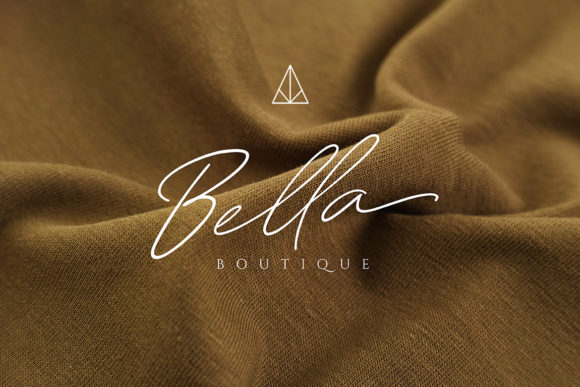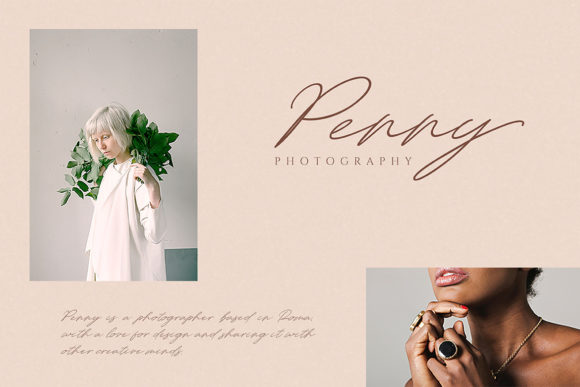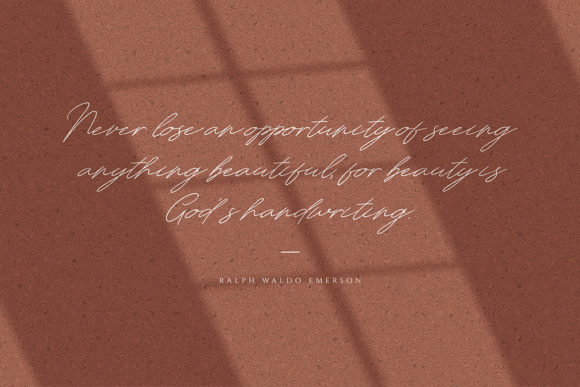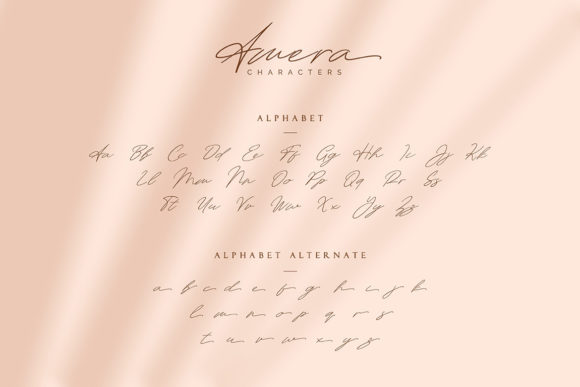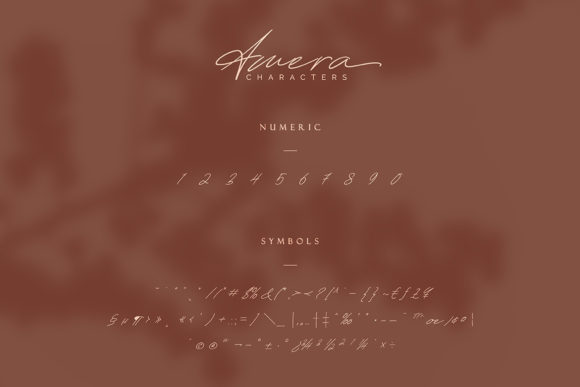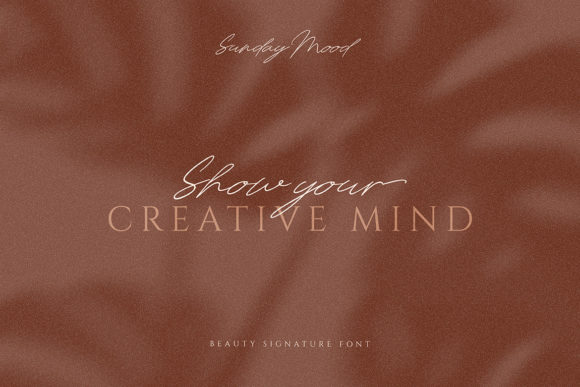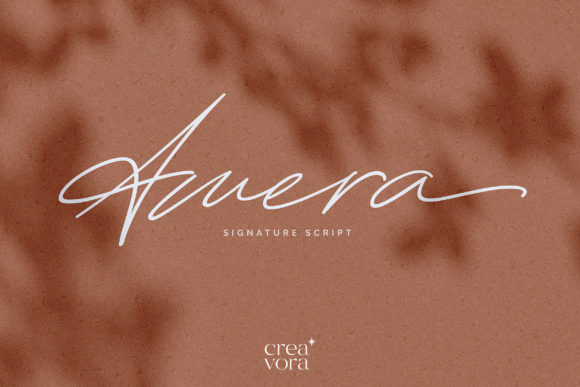
Introducing Amera Font: Elevate Your Designs with Elegance and Sophistication
In the world of typography, a font can make or break a design. For designers and crafters looking to add a touch of elegance and sophistication to their projects, Amera Font is an exceptional choice. This stylish and delicate script font is designed to bring a clean, thin, and smooth vibe to any design, making it a versatile and valuable addition to your typographic arsenal.
The Characteristics of Amera Font
Amera Font boasts a range of characteristics that set it apart from other script fonts on the market. Its clean and thin lines give it a modern and fresh feel, while its smooth curves and flowing connections evoke a sense of elegance and refinement. Whether you’re working on a branding project, a wedding invitation, or a digital design, Amera Font is sure to make a lasting impression.
One of the standout features of Amera Font is its PUA (Private Use Area) encoding. This means that you can easily access all of the font’s glyphs and swashes, giving you a wide range of creative options to enhance your designs. With PUA encoding, you can effortlessly insert special characters, ligatures, and ornaments into your text, allowing you to add an extra layer of sophistication and personality to your work.
Why Designers and Crafters Love Amera Font
So, why do designers and crafters love Amera Font? For starters, its versatility makes it suitable for a wide range of projects, from logos and branding materials to invitations, packaging, and digital designs. Additionally, its elegant and refined aesthetic ensures that your designs will stand out from the crowd and leave a lasting impression on your audience.
Tips for Using Amera Font in Your Designs
To get the most out of Amera Font, here are a few tips to keep in mind:
• Use Amera Font as a headline font to add a touch of elegance and sophistication to your designs.
• Pair Amera Font with a sans-serif font to create a striking contrast and add visual interest to your designs.
• Experiment with the font’s glyphs and swashes to add a personal touch to your designs and make them more engaging.
• Use Amera Font in combination with images or illustrations to create a beautiful and cohesive design.
In conclusion, Amera Font is a stylish and delicate script font that offers a range of creative possibilities for designers and crafters. Its clean, thin, and smooth vibe makes it perfect for adding a touch of elegance and sophistication to any design, while its PUA encoding ensures easy access to glyphs and swashes. Whether you’re working on a branding project, a wedding invitation, or a digital design, Amera Font is an excellent choice. So why not give it a try and see how it can elevate your designs?